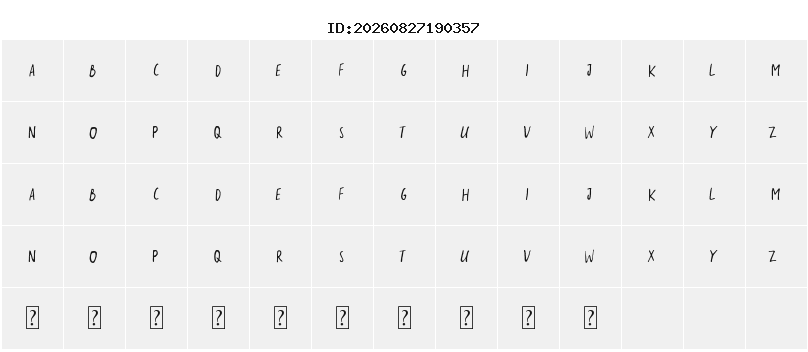
About the sarcastic giraffe.otf
the sarcastic giraffe.otf is a modern, elegant sans-serif font designed for ultimate readability and visual harmony. Perfect for branding, headlines, web design, and print materials.